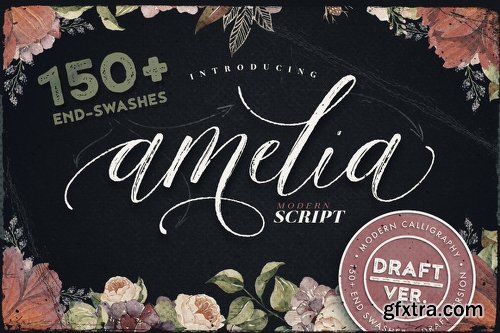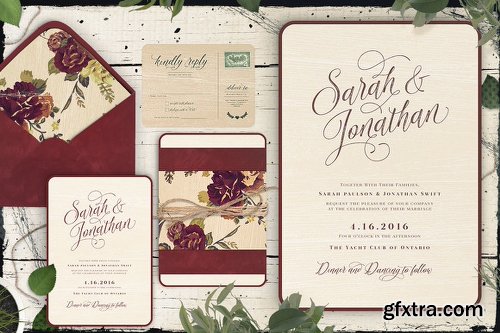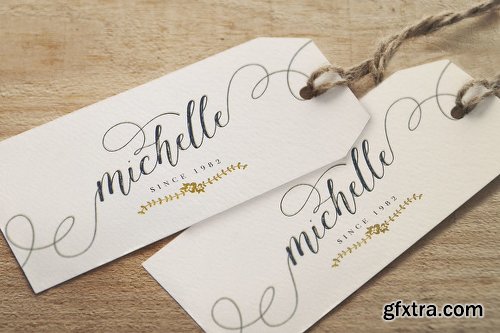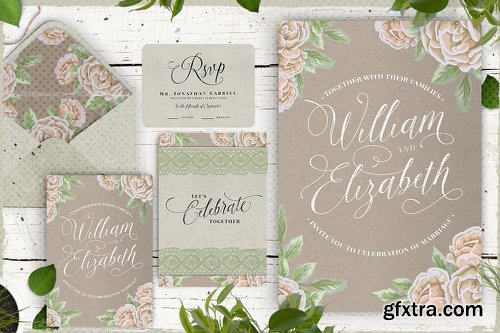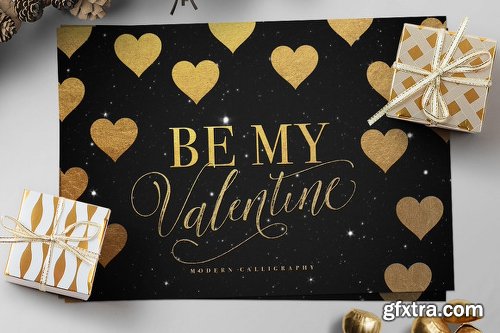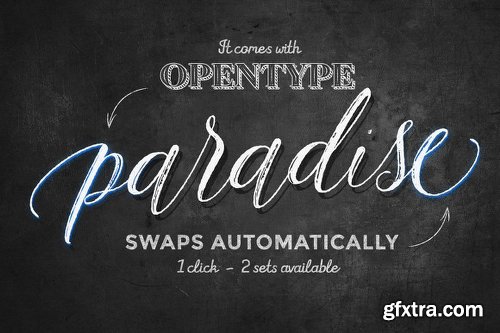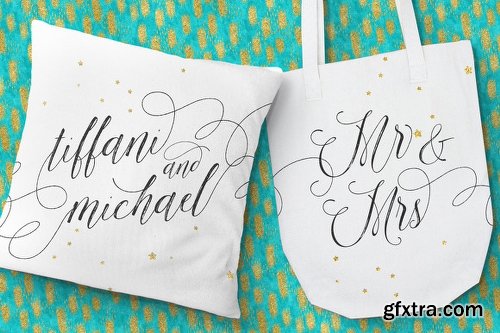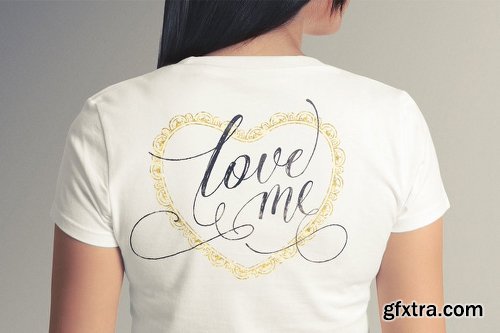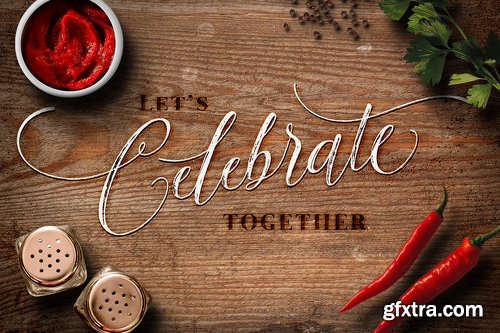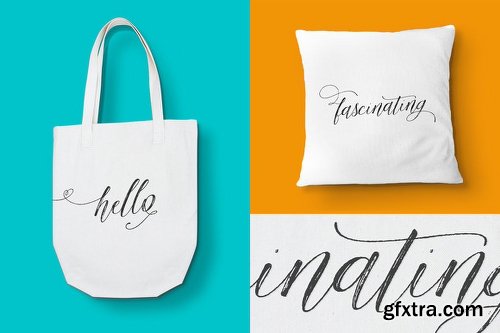
Amelia Script - Draft Version CM 544355
- Amelia Script is revolutionary new modern calligraphy typeface with more then 150 end-swashes. It supports opentype features. It is smart and it is working in Photoshop without necessary to open glyph panel! You are welcome to use it for various purposes: logo, wedding invitation, headings, signatures, t-shirt, letterhead, signage, labels, posters etc.